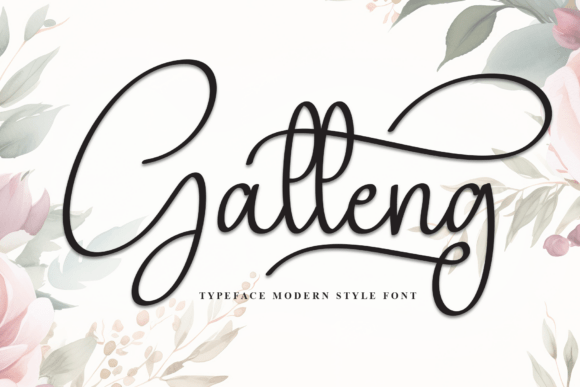
Gatteng Font: Elevate Your Designs with Elegance and Fluidity
In the world of typography, a well-crafted font can make all the difference in elevating a design from ordinary to extraordinary. Gatteng Font is a stunning example of a stylish handwritten script font that embodies elegance and fluidity, perfect for designers and crafters looking to add a touch of sophistication to their projects.
The Essence of Gatteng Font
Gatteng Font is a beautiful, hand-crafted typeface that exudes a sense of natural elegance and refinement. Its smooth, flowing strokes create a fluid and organic feel, reminiscent of handwritten scripts. The font’s gentle curves and subtle variations in line width give it a human touch, making it perfect for designs that require a personal and artistic feel.
Key Features of Gatteng Font
- Elegant and Fluid Design: Gatteng Font boasts a sophisticated and flowing design that adds a touch of luxury to any project.
- Handwritten Script Style: The font’s handwritten script style gives it a personal and artistic feel, perfect for creative projects and designs that require a human touch.
- Smooth and Flowing Strokes: The font’s smooth and flowing strokes create a natural and organic feel, making it ideal for designs that require a sense of fluidity and movement.
- Perfect for Branding and Invitations: Gatteng Font is perfect for branding, invitations, and creative projects that require a touch of elegance and sophistication.
Uses of Gatteng Font
Gatteng Font is a versatile typeface that can be used in a variety of design projects, including:
- Branding and Logos: Gatteng Font is perfect for creating elegant and sophisticated brand identities that require a personal touch.
- Invitations and Stationery: The font’s elegant and refined design makes it ideal for creating beautiful invitations, stationery, and greeting cards.
- Creative Projects: Gatteng Font is perfect for creative projects such as art, design, and photography, where a touch of elegance and sophistication is required.
- Packaging and Advertising: The font’s bold and eye-catching design makes it suitable for packaging and advertising projects that require a touch of luxury and sophistication.
Benefits of Using Gatteng Font
Using Gatteng Font in your designs offers several benefits, including:
- Unique and Creative Designs: Gatteng Font allows designers to create unique and creative designs that stand out from the crowd.
- Elegant and Sophisticated Feel: The font’s elegant and refined design adds a touch of sophistication to any project, making it perfect for high-end designs.
- Flexibility and Versatility: Gatteng Font is a versatile typeface that can be used in a variety of design projects, from branding and invitations to creative projects and packaging.
Tips for Using Gatteng Font
To get the most out of Gatteng Font, here are some tips to keep in mind:
- Use it Sparingly: Gatteng Font is a bold and eye-catching typeface, so use it sparingly to avoid overwhelming the design.
- Pair it with Other Fonts: Gatteng Font can be paired with other fonts to create a unique and creative design.
- Experiment with Colors and Textures: The font’s elegant and refined design makes it perfect for experimenting with different colors and textures.
Gatteng Font is a stunning example of a stylish handwritten script font that embodies elegance and fluidity. Its smooth, flowing strokes create a natural and sophisticated feel, perfect for branding, invitations, and creative projects. With its unique and creative design, Gatteng Font is sure to elevate any design project to the next level. Whether you’re a designer or crafter, Gatteng Font is a must-have typeface that will add a touch of elegance and sophistication to your designs.